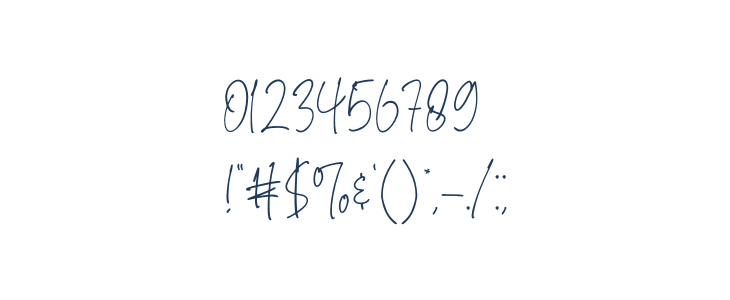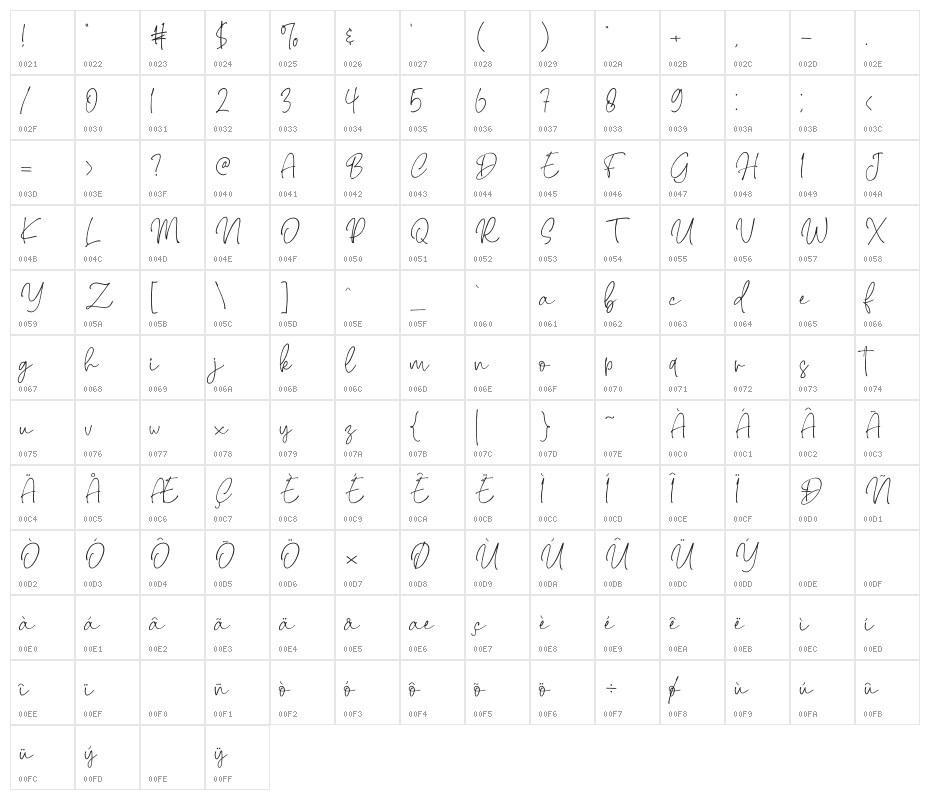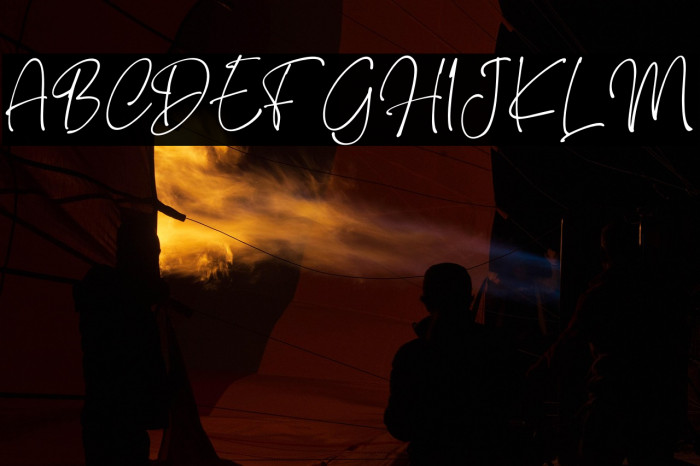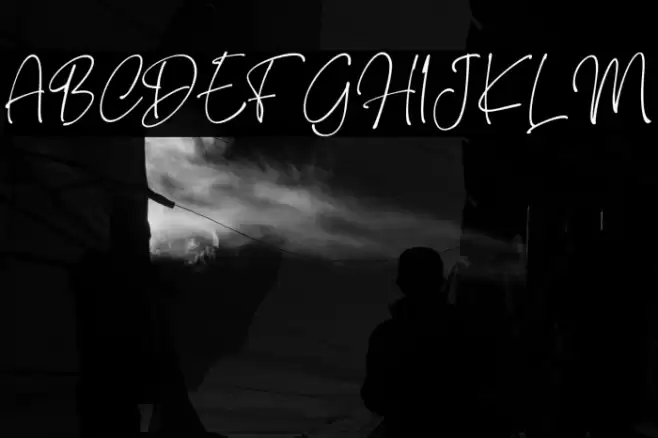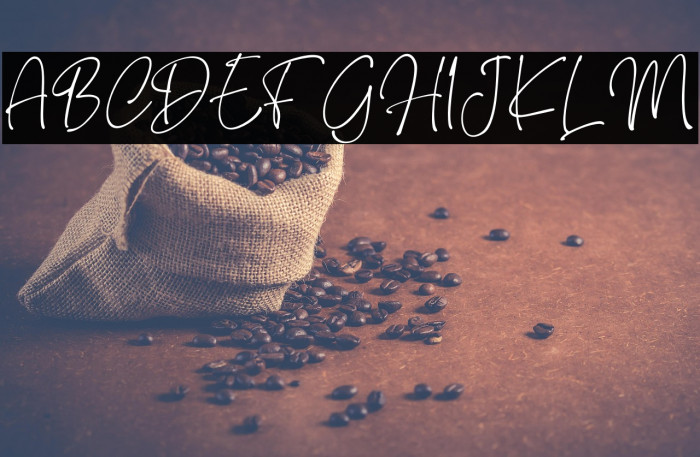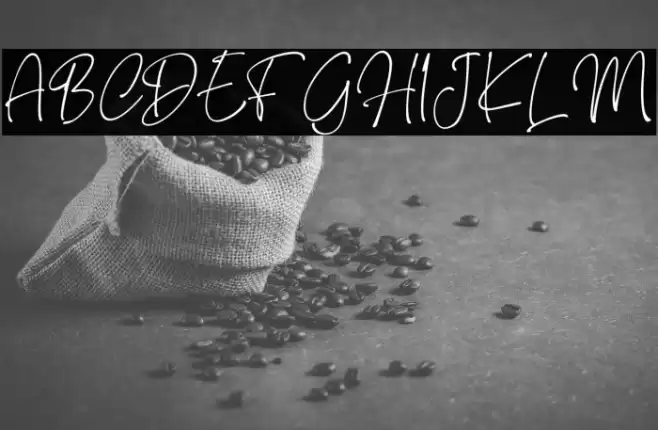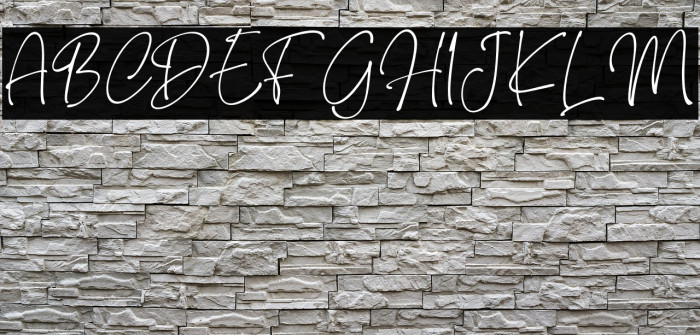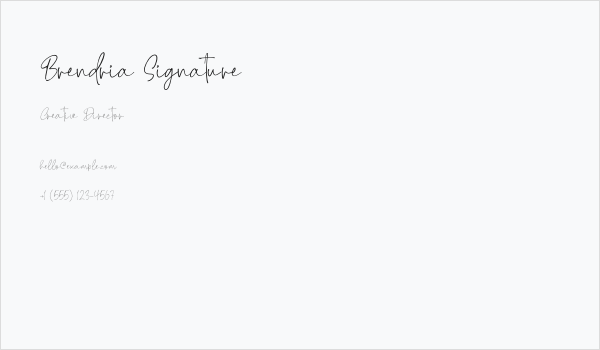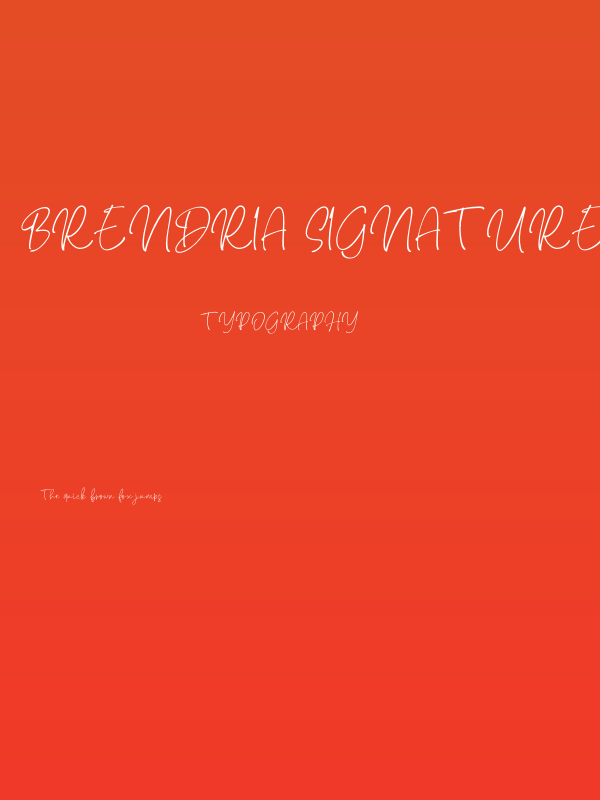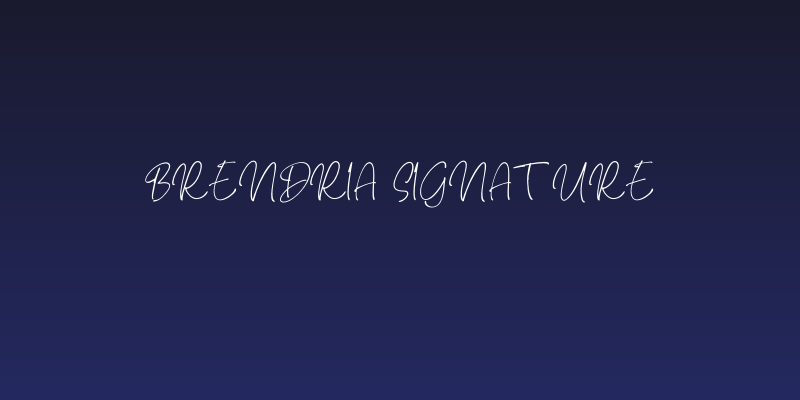
Brendria Signature Font
Brendria Signature Description
This elegant script font features a fluid, handwritten style with a natural flow, reminiscent of personal signatures. The characters are connected with smooth, sweeping lines, giving it a sophisticated and artistic appearance. The uppercase letters are slightly more structured, while the lowercase letters exhibit a more freeform, cursive style. The numerals and special characters maintain the same fluidity, ensuring consistency across all glyphs. This font is perfect for adding a personal touch to any design, with its graceful curves and stylish flair.
| Overall Style | Elegant, Artistic |
| Proposed Projects | Ideal for wedding invitations, branding, personal stationery, and elegant logo designs. |